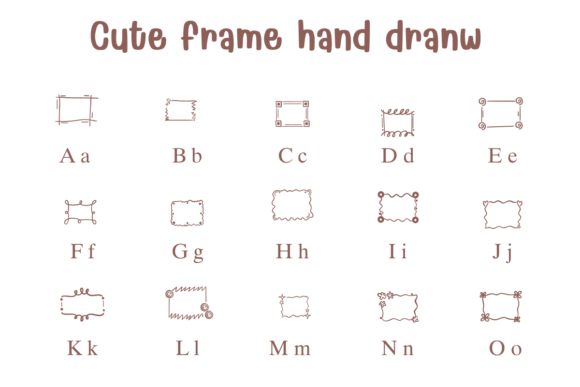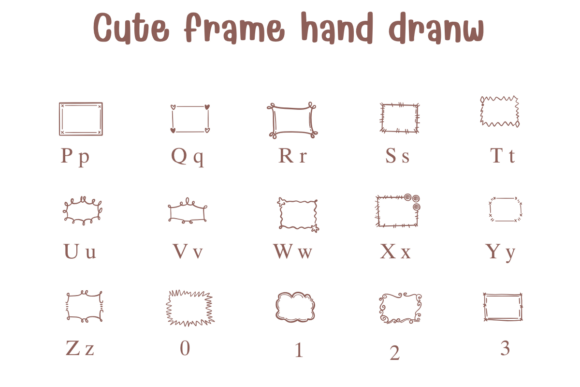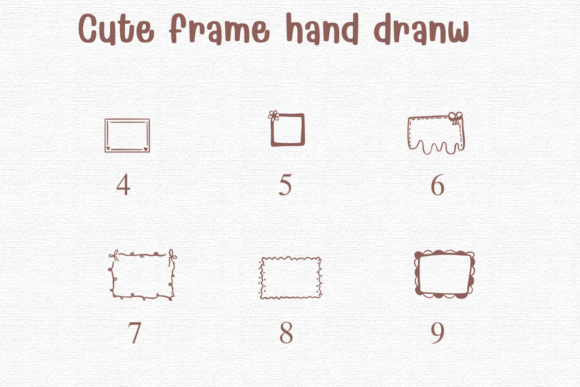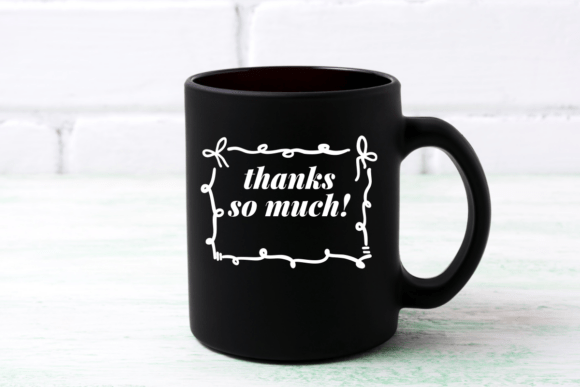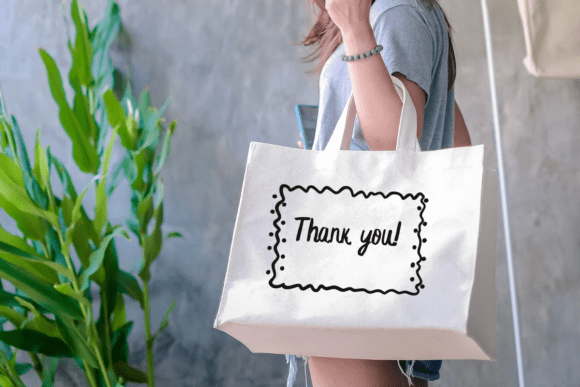
Transform Your Digital Workspace with Cute Frame Font
Are you tired of the same old digital workspace? Do you want to add a touch of whimsy and coziness to your crafting station? Look no further than the Cute Frame Font, a hand-drawn dingbats font that will revolutionize the way you create and design. In this article, we’ll explore the features and benefits of this delightful font and how it can transform your digital workspace into a charming crafting haven.
What is Cute Frame Font?
Cute Frame Font is a unique, hand-drawn dingbats font that defies traditional text structures. With this font, each keypress unlocks a new, beautifully sketched border collection, turning your keyboard into a treasure chest of creative possibilities. The font features a wide range of playful designs, including squiggles, romantic corner hearts, cloud loops, delicate buttons, dashed marker notches, and geometric zigzag ripples.
Key Features of Cute Frame Font
- Hand-drawn designs: Each border is carefully crafted by hand, giving your designs a personal and unique touch.
- Clean vector paths: The font is optimized with clean vector paths, ensuring that your designs remain crisp and clear, even when scaled up or down.
- Consistent monoline weights: The font features consistent monoline weights, making it perfect for use on electronic craft plotters like Cricut and Silhouette.
- Wide range of designs: With Cute Frame Font, you get access to a vast library of border designs, including playful squiggles, romantic hearts, and delicate buttons.
Perfect for Crafters and Designers
Cute Frame Font is an ideal choice for crafters and designers looking to add a touch of whimsy to their digital workspace. Whether you’re creating personalized digital stickers, designing children’s educational planners, or crafting handmade greeting cards, this font has got you covered. The font’s versatility and ease of use make it perfect for a wide range of projects, including:
- Border quotes and titles: Use Cute Frame Font to add a decorative border to your quotes and titles, making them stand out.
- Photo frames and collages: Create beautiful photo frames and collages with the font’s delicate borders and designs.
- Children’s educational planners: Design engaging and interactive educational planners for kids with Cute Frame Font’s playful borders and designs.
- Personalized digital stickers: Create custom digital stickers with the font’s adorable designs and borders.
- Custom kindergarten classroom worksheets: Design fun and interactive worksheets for kindergarten classrooms with Cute Frame Font’s whimsical borders and designs.
- Handmade greeting cards: Add a personal touch to your greeting cards with Cute Frame Font’s beautiful borders and designs.
Benefits of Using Cute Frame Font
Using Cute Frame Font in your digital workspace offers numerous benefits, including:
- Increased creativity: The font’s unique designs and borders will inspire you to create more and explore new ideas.
- Time-saving: With Cute Frame Font, you can create beautiful borders and designs in minutes, saving you time and effort.
- Professional-looking designs: The font’s clean vector paths and consistent monoline weights ensure that your designs look professional and polished.
- Ease of use: Cute Frame Font is easy to use and works seamlessly with electronic craft plotters like Cricut and Silhouette.
Cute Frame Font is a game-changer for designers and crafters looking to transform their digital workspace into a cozy and creative haven. With its unique hand-drawn designs, clean vector paths, and consistent monoline weights, this font is perfect for a wide range of projects, from border quotes and titles to personalized digital stickers and handmade greeting cards. Whether you’re a seasoned designer or a crafty beginner, Cute Frame Font is an essential tool that will inspire your creativity and take your designs to the next level.